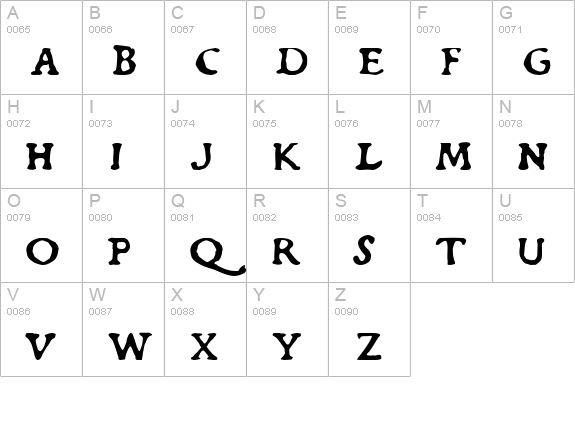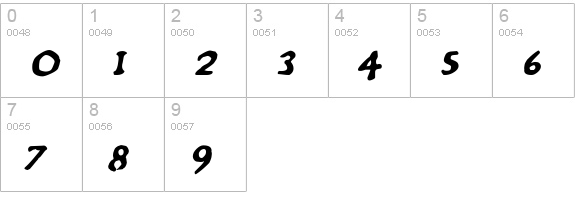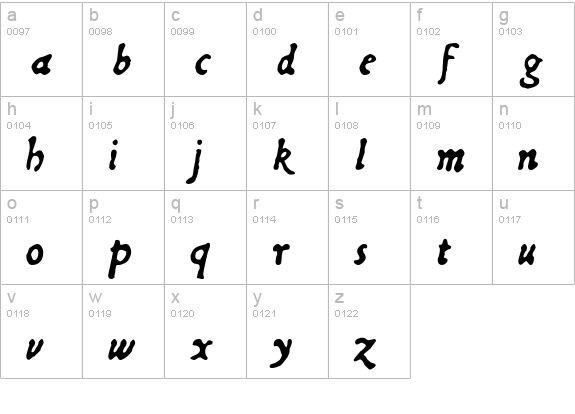
Du Bellay Italic Font Details
Du Bellay Italic is a distinctive, italic variant in the Du typeface family \xE2\x80\x94 well suited to design and typography projects.
Du Bellay Italic font is a stunning typeface that combines elegance with a touch of sophistication. Its graceful curves and delicate serifs create a sense of refinement and style, making it perfect for adding a touch of class to any design project. The italic style adds a sense of movement and fluidity, making text appear dynamic and engaging. This font is not only visually appealing but also highly versatile, suitable for a wide range of applications from branding to editorial design. Whether you're working on a logo, website, or print materials, Du Bellay Italic font will bring a sense of sophistication to your work. Best of all, Du Bellay Italic font is completely free to download at FontsMarket.com. So why wait? Add this beautiful typeface to your collection today and elevate your designs to the next level.